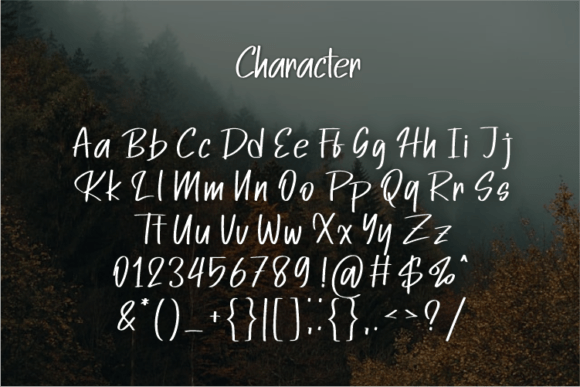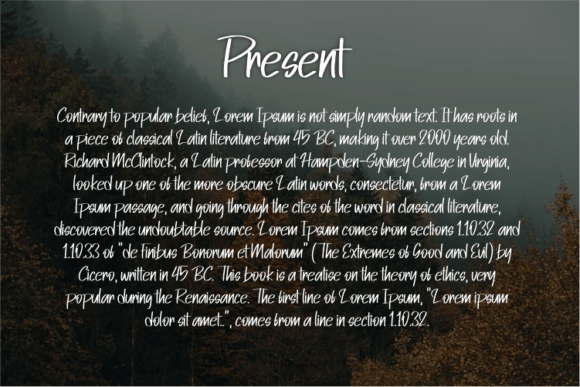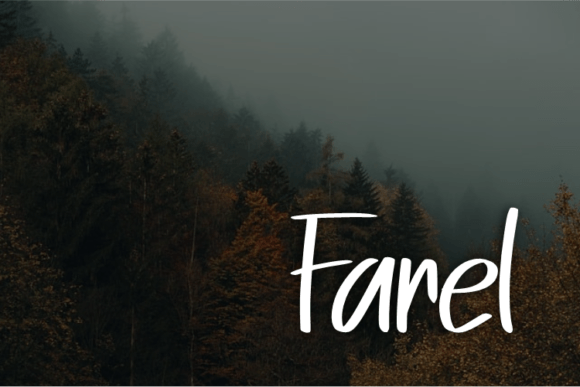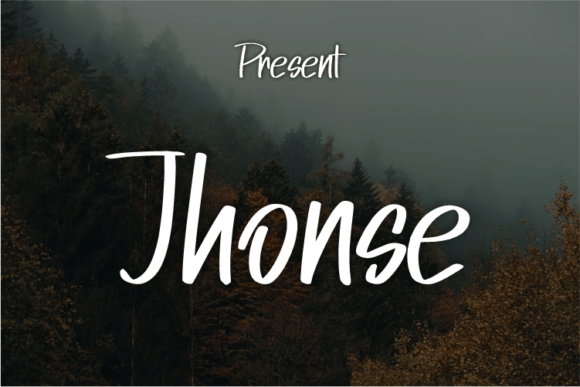
Introduction to Jhonse Font
Handwritten is a trendy handwritten font with a contemporary atmosphere and impeccable form, inspired by a timeless classic calligraphy.
It will add elegance and class to any of your design projects .
Jhonse Font offers exceptional quality and versatility, making it a valuable addition to your design toolkit. Whether you’re creating for personal projects or commercial use, Jhonse Font delivers professional results.